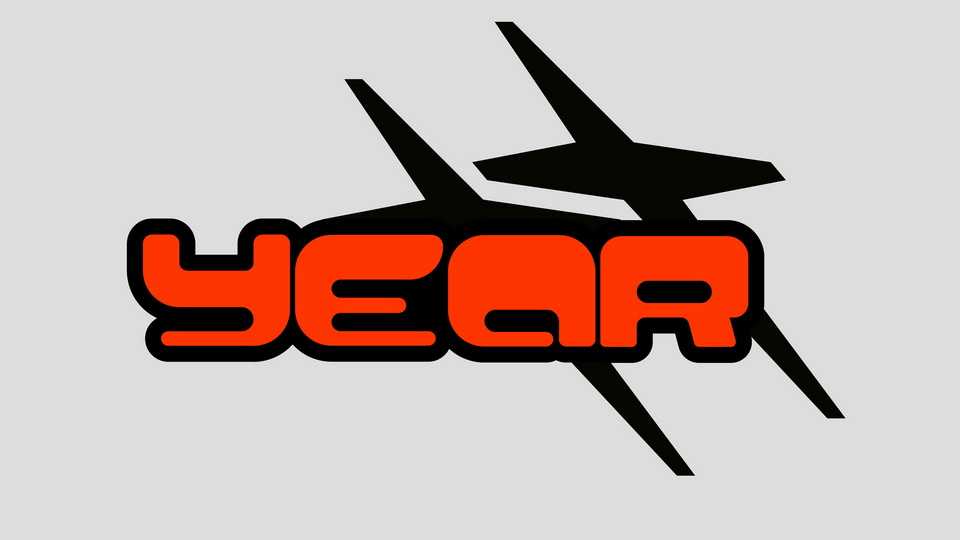
Download Year font, a display typeface inspired y2k aesthetics with a futuristic touch. Year font is perfect for technology, digital, gaming, space galaxy projects.